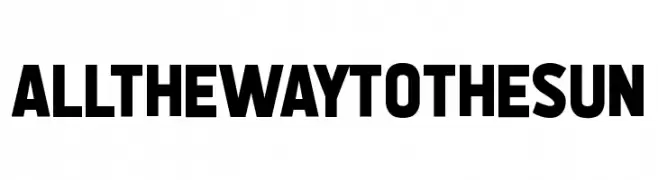
( Chequered Ink - chequered.ink/ )
A bold, modern typeface with geometric letterforms and strong visual impact.
( 7NTypes - Situjuh Nazara - 7ntypes.com )
A playful, hand-drawn font with bold, rounded characters.
( APG Studios - Anna Gustafson - www.apgstudios.com )
A playful, circle-based decorative font with a whimsical and artistic style.
( Caveras - Cliff Modes - caveras.net )
A pixelated, retro-style font with a blocky, digital appearance.
( Alit Design - Alit Suarnegara - www.alitdesign.net )
A modern, flowing cursive font with an elegant italic style.
( Alit Design - Alit Suarnegara - www.alitdesign.net )
A cursive, elegant font with a slight slant and consistent flow.
( A. M. )
A bold, vintage slab serif typeface with a typewriter-inspired design.
( Amal elMourabet )
A bold, geometric font with a futuristic and modern style.
( Ajith Rajan - ajithrajan.tk )
A bold, playful font with rounded, smooth characters and a dynamic slant.
( Ajith Rajan - ajithrajan.tk )
A modern italic font with smooth, slanted letterforms and a sleek, dynamic appearance.